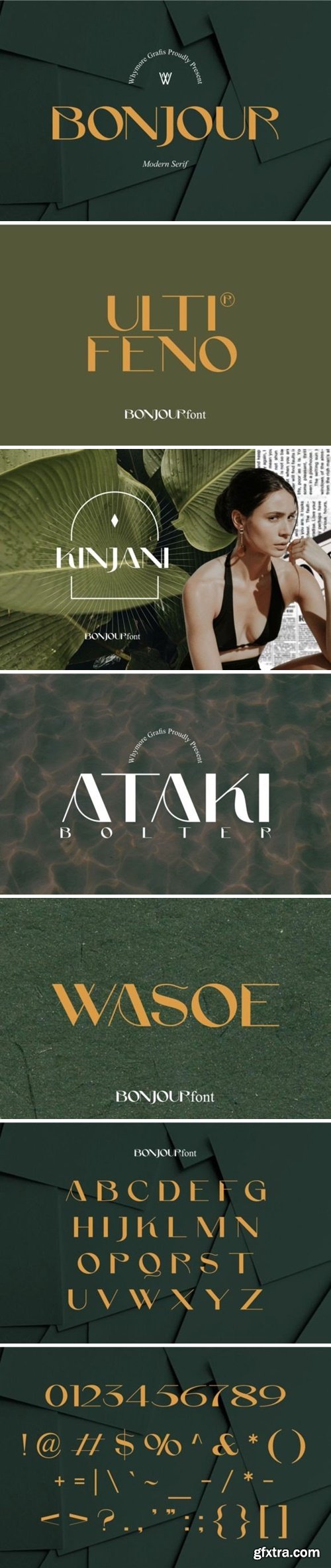
Bonjour 字体
Bonjour is a typeface that is flexible and very flexible and is suitable for designs that emphasize aesthetics and beauty. It can display an elegant nature but with an interesting curved shape. Whether used for branding, invitations, or editorial design, Bonjour adds a touch of glamor to any project.